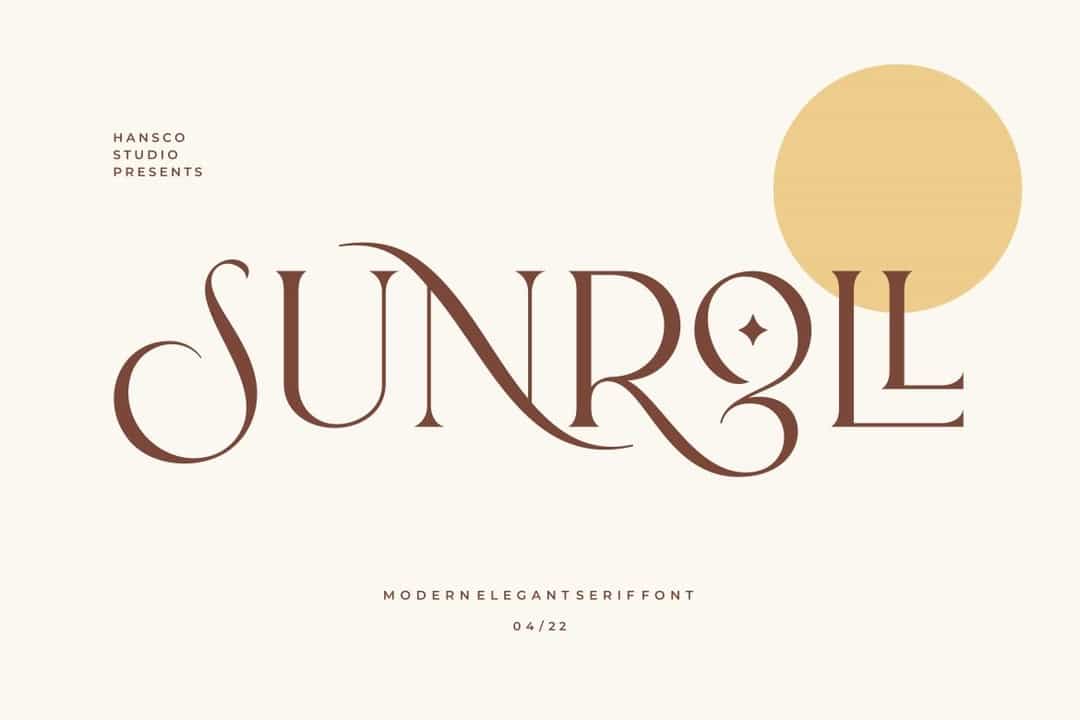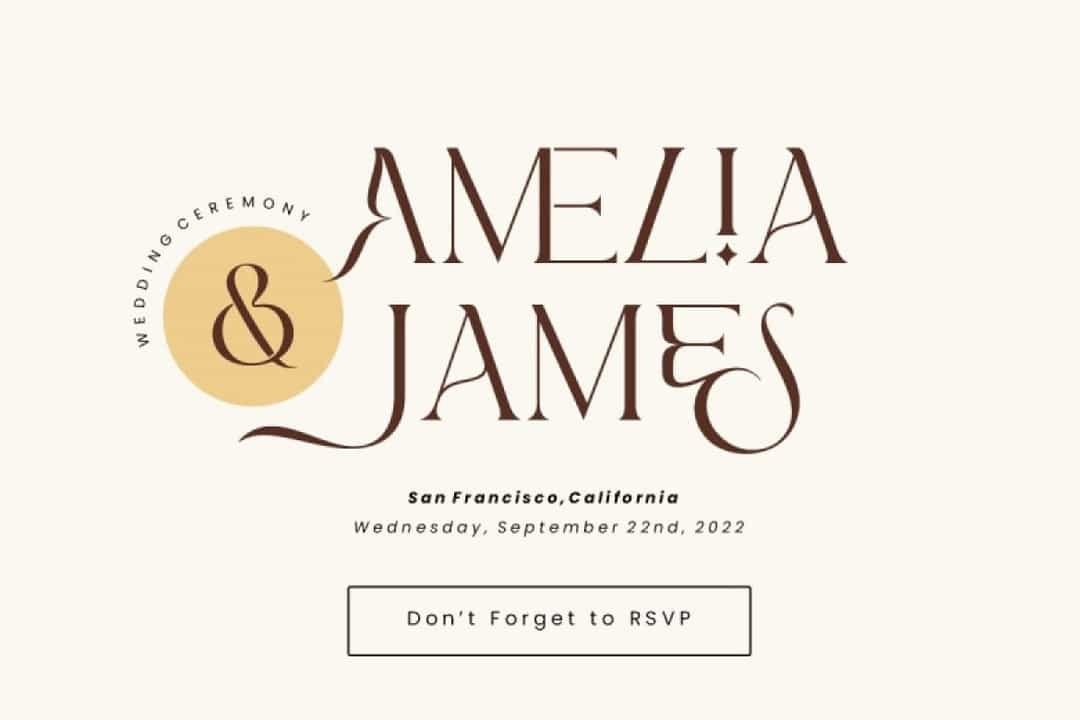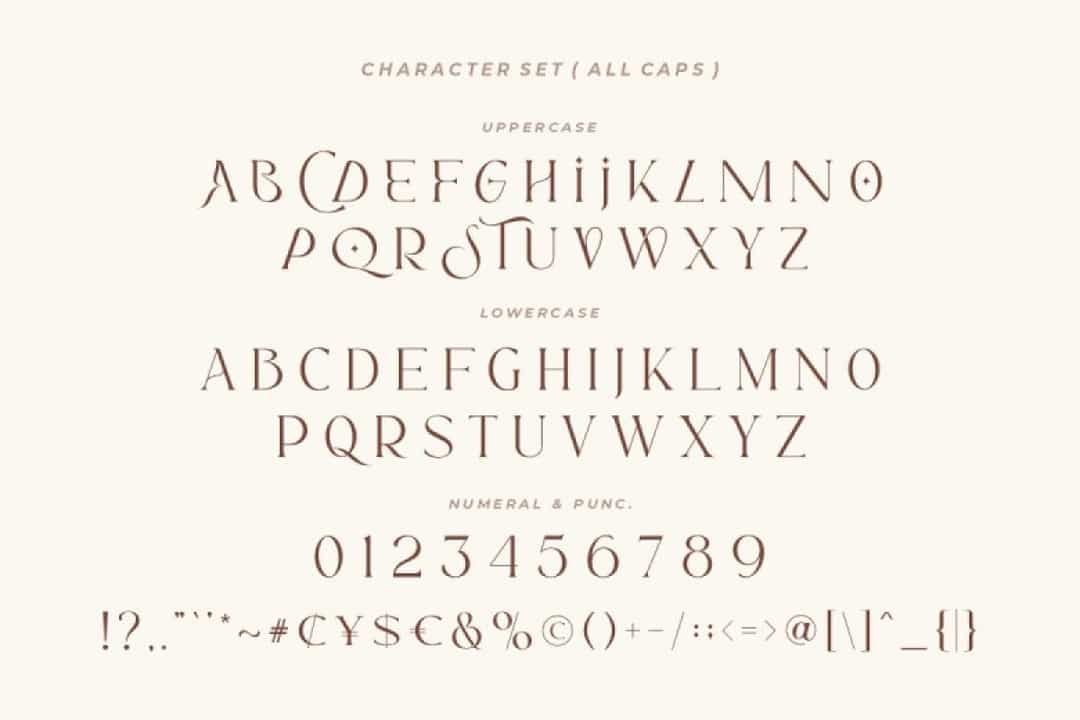
Sunroll is an elegant display serif font with an exquisite and luxurious aesthetic, ideal for mood boards and logos with its all caps font and variety of alternates and ligatures, punctuation marks, numbers, and multilingual letters.